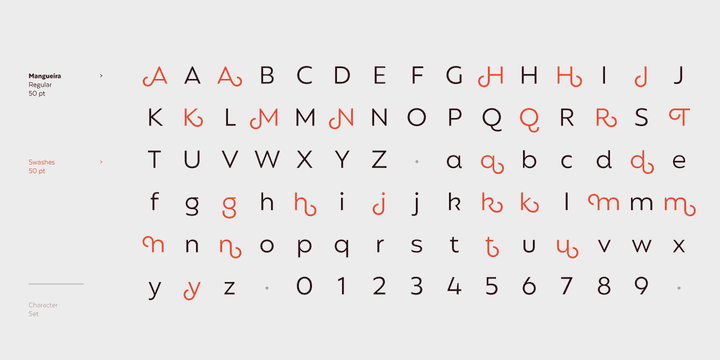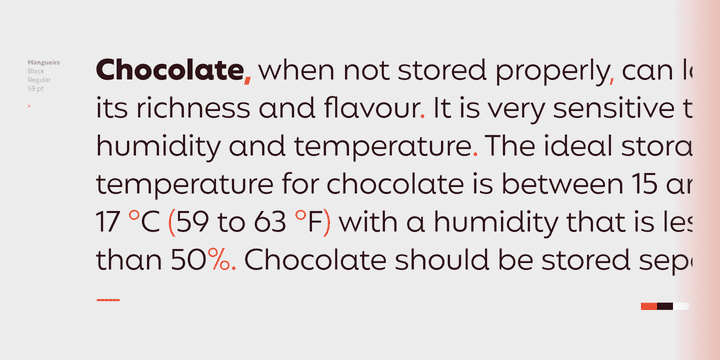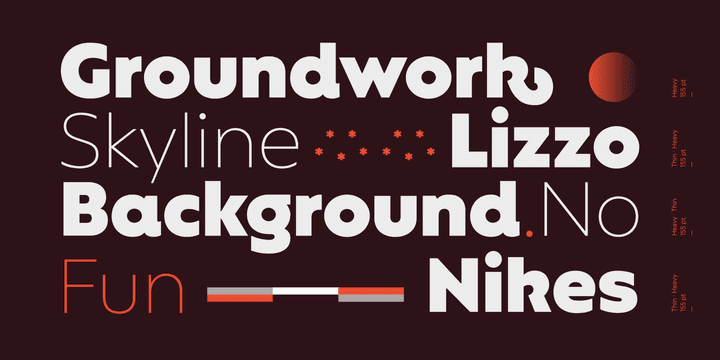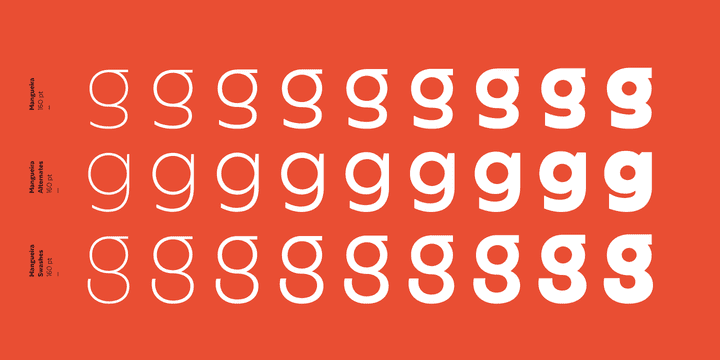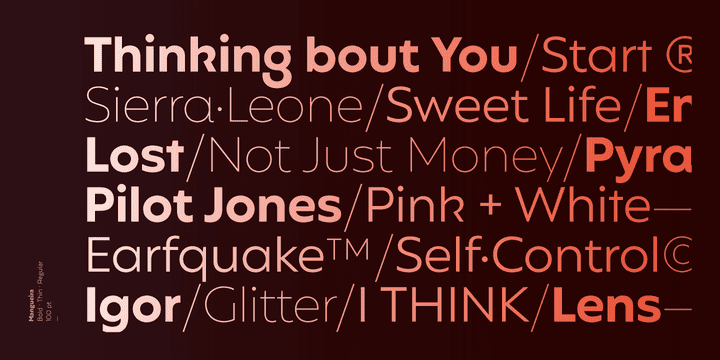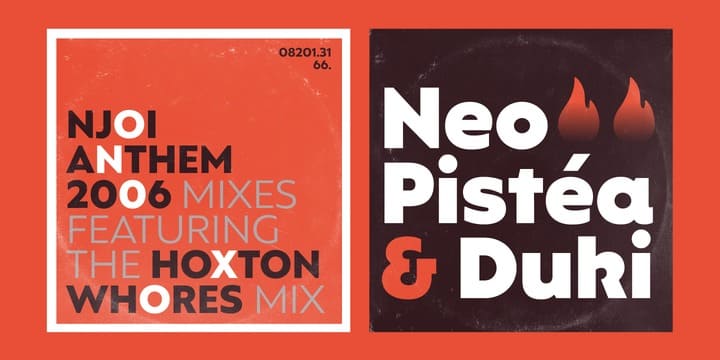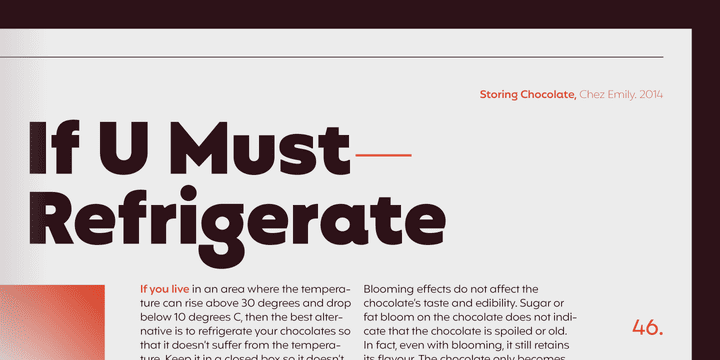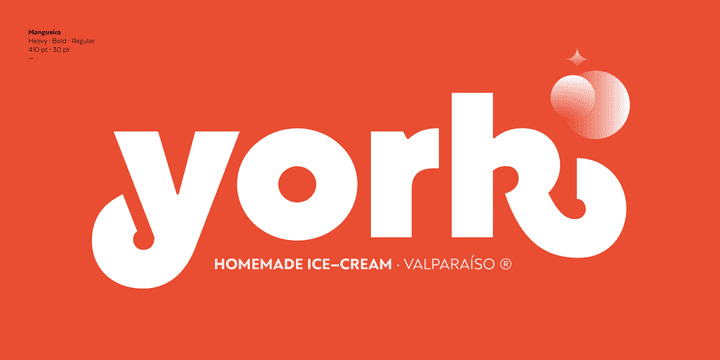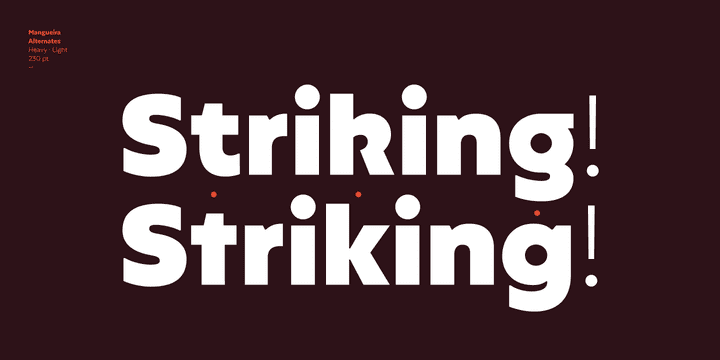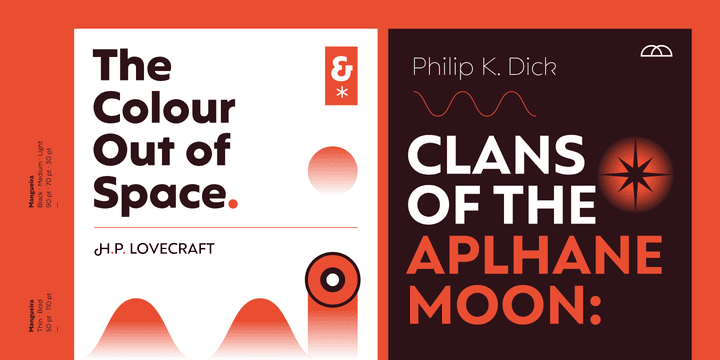
One of its main features is the combination of geometric shapes and vertical terminals that resemble Humanist sans typefaces. A generous number of swashes along with unique details in some glyphs such as "g" and "k" make Mangueira a versatile font well-suited for editorial design, branding, packaging, web and broadcast use, etc.
Mangueira contains a set of 502 characters, supporting over 200 Latin-based languages.